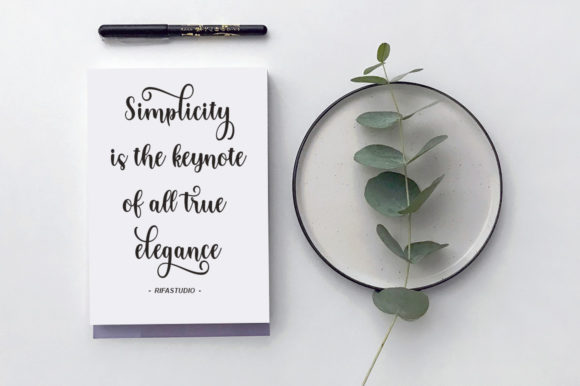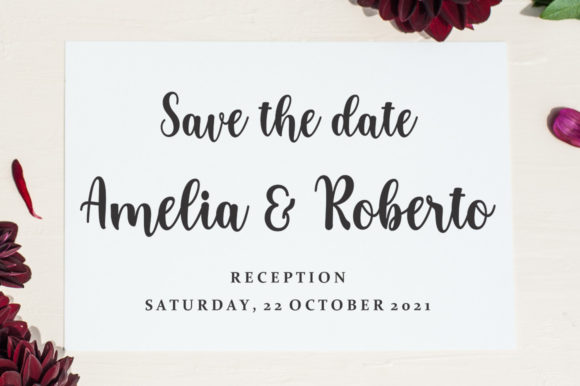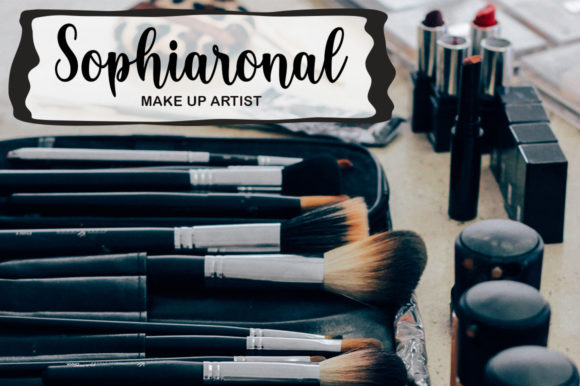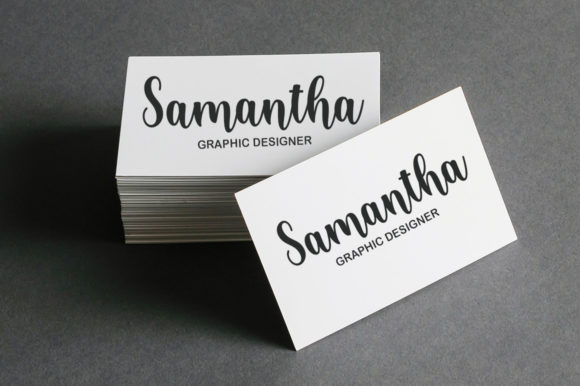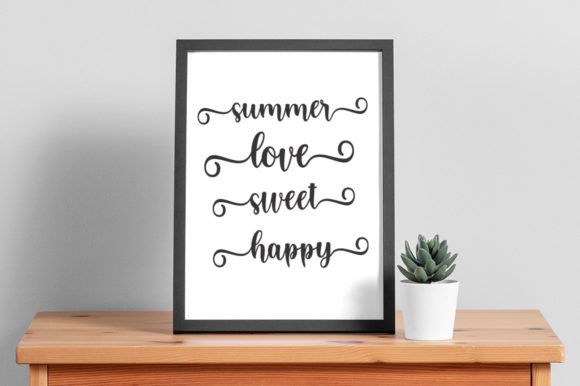
Cataleya Script Font: Elevate Your Designs with Elegance and Sophistication
In the world of typography, a font can make or break a design. When it comes to creating a lasting impression, the right font choice is crucial. If you’re a designer or crafter looking to add a touch of elegance and sophistication to your projects, look no further than the Cataleya Script Font. This stunning script font is designed to bring a level of refinement and chic to your work, making it perfect for a wide range of applications.
What Makes Cataleya Script Font So Special?
Cataleya Script is a beautifully crafted script font that exudes luxury and poise. Its stylish alternates and ligatures make it a versatile and highly sought-after font for designers and crafters. Whether you’re working on a branding project, creating wedding invitations, or designing packaging, Cataleya Script Font is the perfect match. Its elegant and refined appearance is sure to elevate your designs and leave a lasting impression on your audience.
One of the standout features of Cataleya Script Font is its PUA (Private Use Area) encoding. This means that you can access all glyphs and swashes with ease, giving you complete creative control over your designs. With PUA encoding, you can effortlessly navigate the font’s extensive character set, including alternates, ligatures, and swashes, to create stunning and unique designs.
Cataleya Script Font is an incredibly versatile font that can be used for a wide range of projects. Here are just a few examples of how you can use this beautiful font:
- Branding and Logos: Create a lasting impression with a custom logo or brand identity that exudes elegance and sophistication.
- Wedding Invitations: Add a touch of luxury and romance to your wedding invitations and stationery.
- Packaging: Elevate your product packaging with a refined and stylish font that stands out on store shelves.
- Signage: Create eye-catching signage that makes a statement with Cataleya Script Font.
- Digital Media: Use Cataleya Script Font to add a touch of elegance to your digital media, including social media graphics, email newsletters, and more.
Why Choose Cataleya Script Font?
With so many fonts to choose from, why should you choose Cataleya Script Font? Here are just a few reasons why this font stands out:
- Unique and Elegant Design: Cataleya Script Font features a unique and elegant design that is sure to turn heads.
- Highly Versatile: With its extensive character set and PUA encoding, Cataleya Script Font is highly versatile and easy to use.
- PUA Encoding: Access all glyphs and swashes with ease, giving you complete creative control over your designs.
- Exceptional Quality: Cataleya Script Font is designed to deliver exceptional quality and performance, ensuring that your designs look stunning and professional.
| Font Name | Cataleya Script Font |
| Author | abg |
In conclusion, Cataleya Script Font is a stunning and versatile script font that is perfect for designers and crafters looking to add a touch of elegance and sophistication to their projects. With its stylish alternates and ligatures, PUA encoding, and highly versatile design, this font is sure to elevate your designs and leave a lasting impression on your audience. Whether you’re working on a branding project, creating wedding invitations, or designing packaging, Cataleya Script Font is the perfect choice.